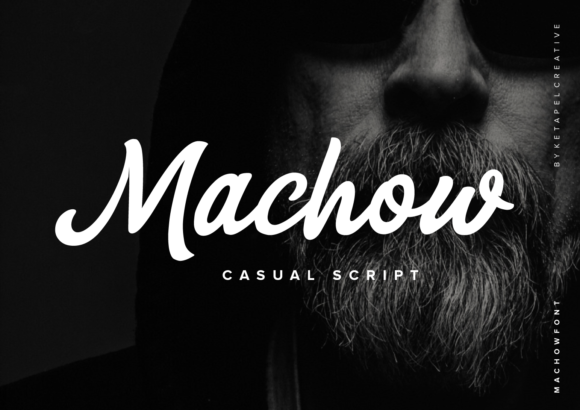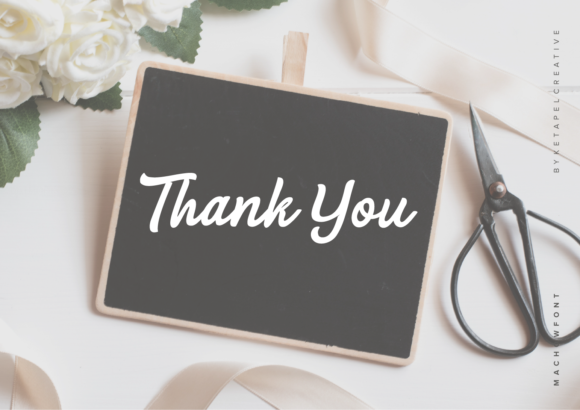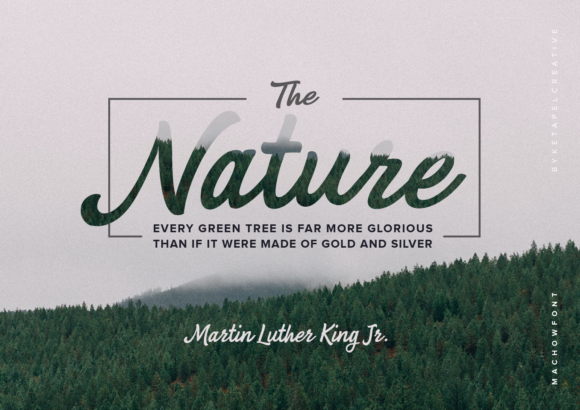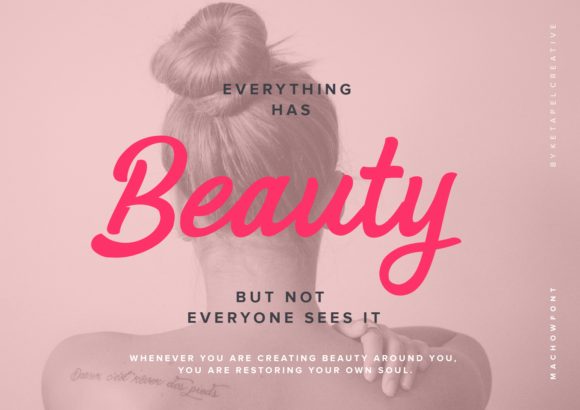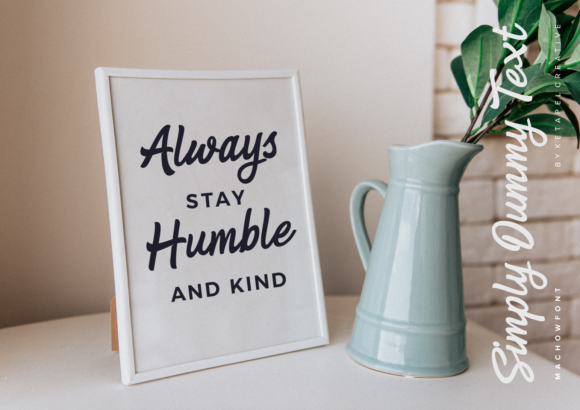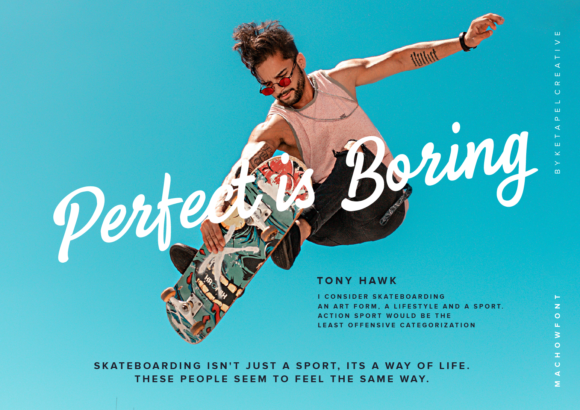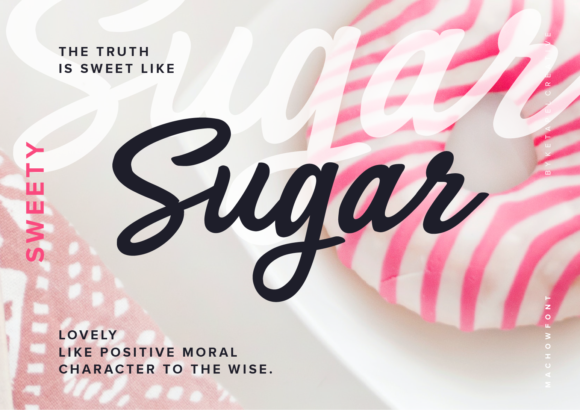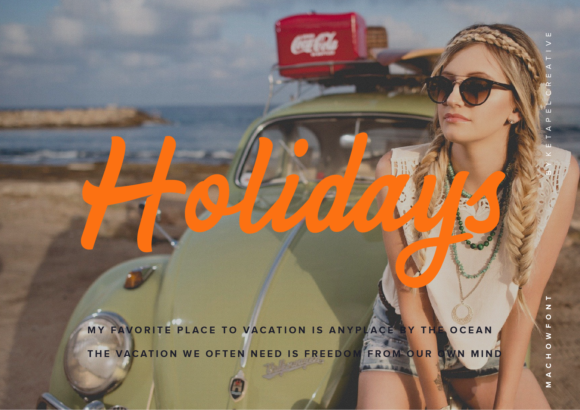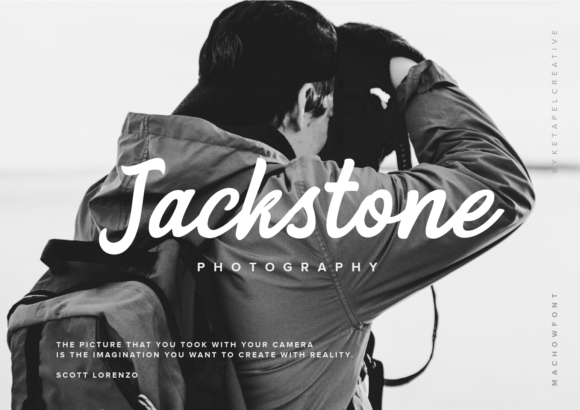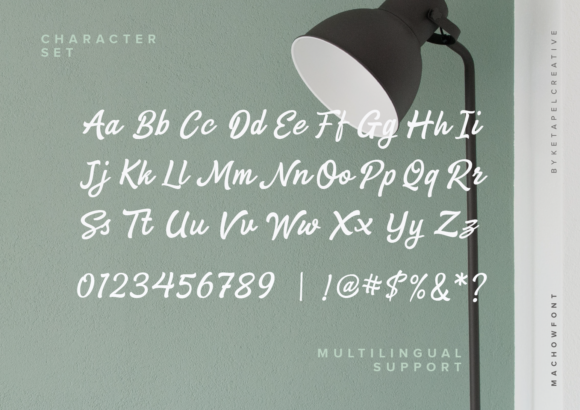
Machow Font
About Machow Font
Machow is a flowing and cute handwritten font. It maintains its classy calligraphic influences while feeling contemporary and fresh. This versatility will appeal to a wide range of crafty ideas, from letterheads and titles, to stationery.